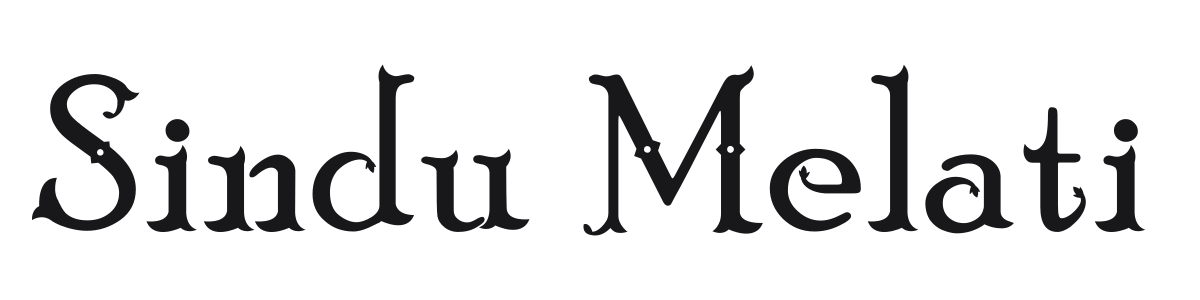
Sindu Melati
Sindu Melati is a decorative serif drawn from the intricate patterns of Klaten batik, a traditional Indonesian textile art. The curling terminals and small ball accents give each character a handcrafted quality unlike any classical Western serif. It brings a distinctive cultural warmth to titles, packaging, and identity work.